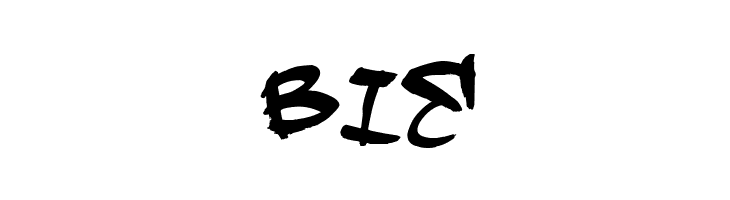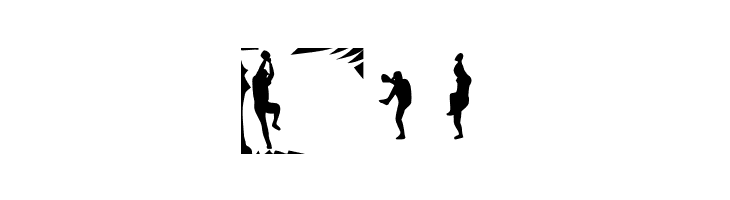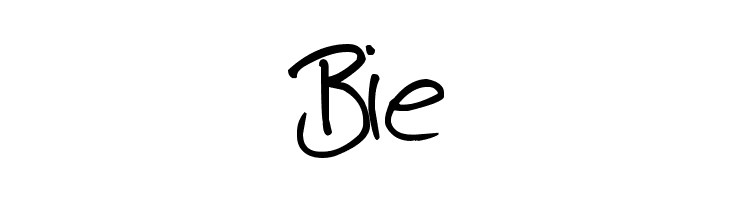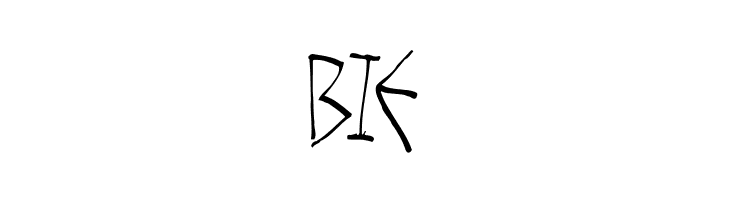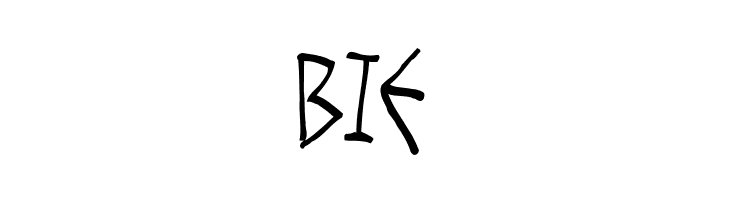
• HappyBirdsDay
A playful, hand-drawn font with dynamic strokes and whimsical bird illustrations.
• HappyBirdsDay-Medium
A whimsical, hand-drawn font with playful bird-themed characters.
• Hard Compound
A bold, angular font with a rugged, geometric design.
• Hardkaze
A bold, hand-drawn font with a dynamic, graffiti-like style.
• harrison
A lively and dynamic handwritten font with fluid strokes and playful tilt.
• HartzVier
A dynamic, cursive script font with elegant flourishes and a handwritten feel.
• HartzVier-Shadow
A bold, shadowed font with a three-dimensional effect.
• HassianUncial
A bold, angular font with a modern twist on traditional styles.
• Have a break
A pixelated, monospaced font with a retro digital aesthetic.
• HB17
A dynamic, sports-themed font featuring baseball player silhouettes.